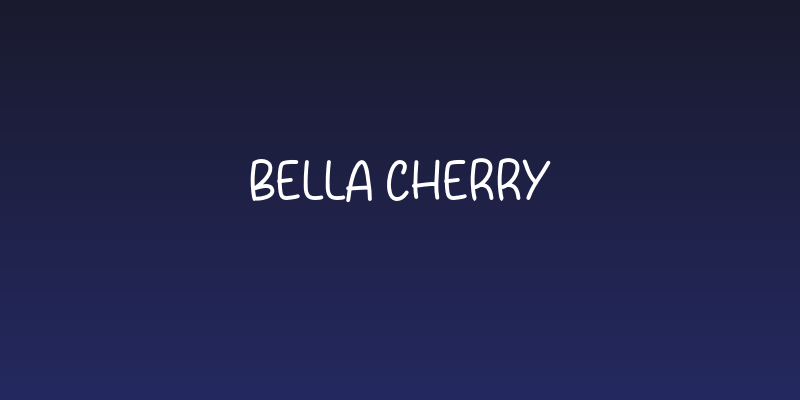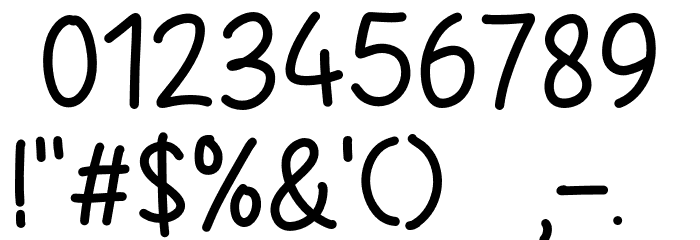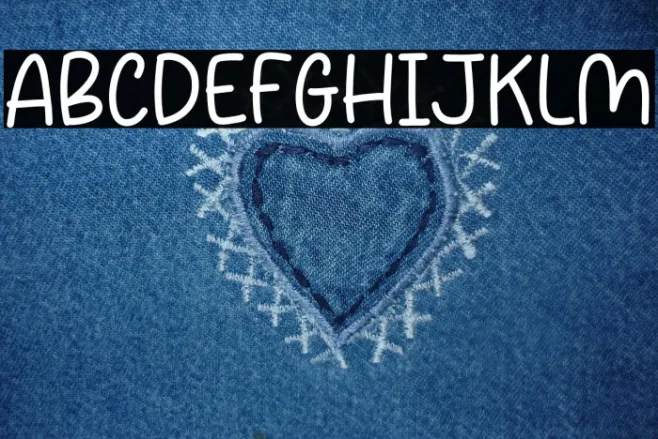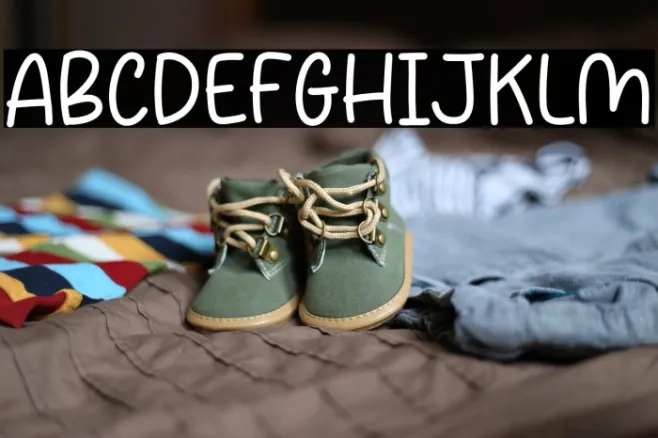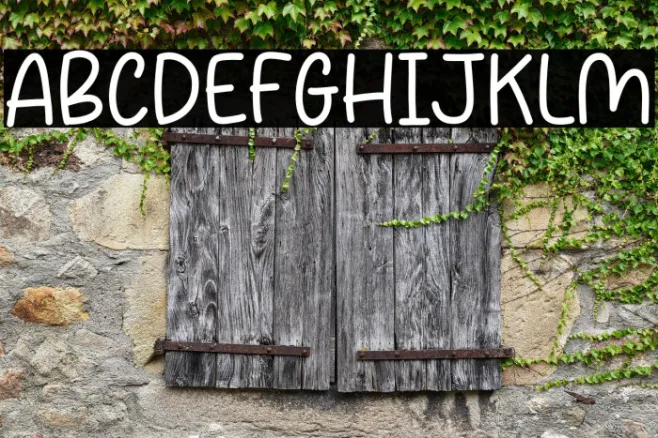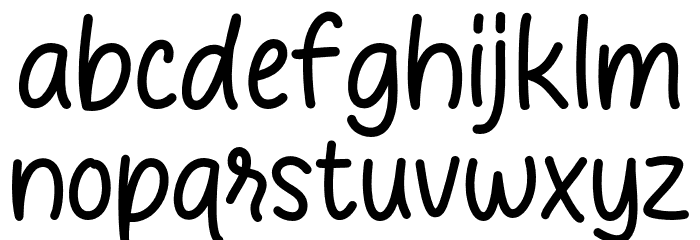
Bella Cherry Font
Bella Cherry Description
This font features a playful and casual handwritten style, characterized by rounded edges and a consistent stroke width. The letters are slightly irregular, giving it a friendly and approachable appearance. The uppercase and lowercase letters maintain a uniform height, while the numbers and special characters are designed to complement the overall aesthetic. The font's informal nature makes it suitable for projects that require a personal touch or a relaxed vibe.
| Use Case | Headlines, Informal text, Personal projects |
| Proposed Projects | Ideal for greeting cards, children's books, personal blogs, and informal branding. |